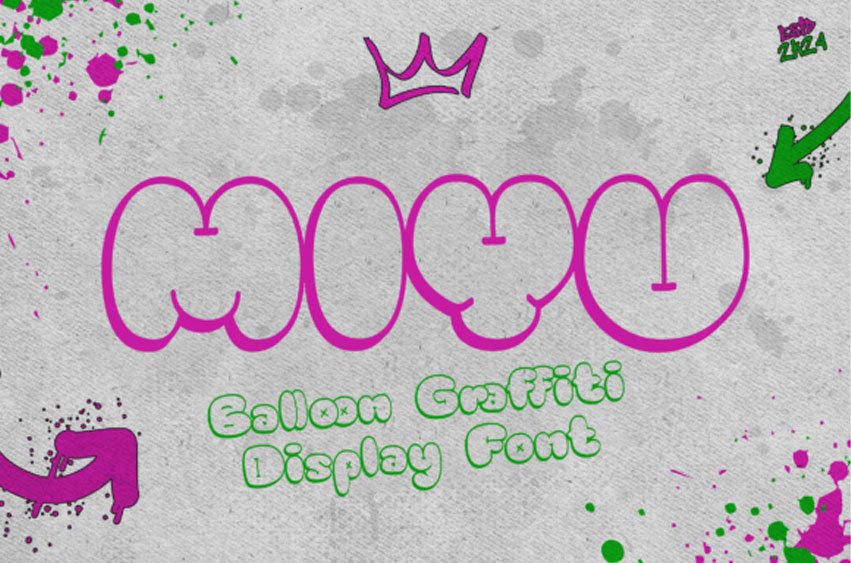
Miyu Font is a playful bubble display font designed with rounded shapes and fun character details. The soft and expressive letterforms create a cheerful and energetic look that works well for informal and creative designs.
This typeface is suitable for kids design, graffiti graphics, posters, stickers, merchandise, and playful branding. Miyu includes uppercase and lowercase characters, numerals, punctuation, ligatures, and multilingual support, allowing designers to create lively typography for fun and expressive visual projects.